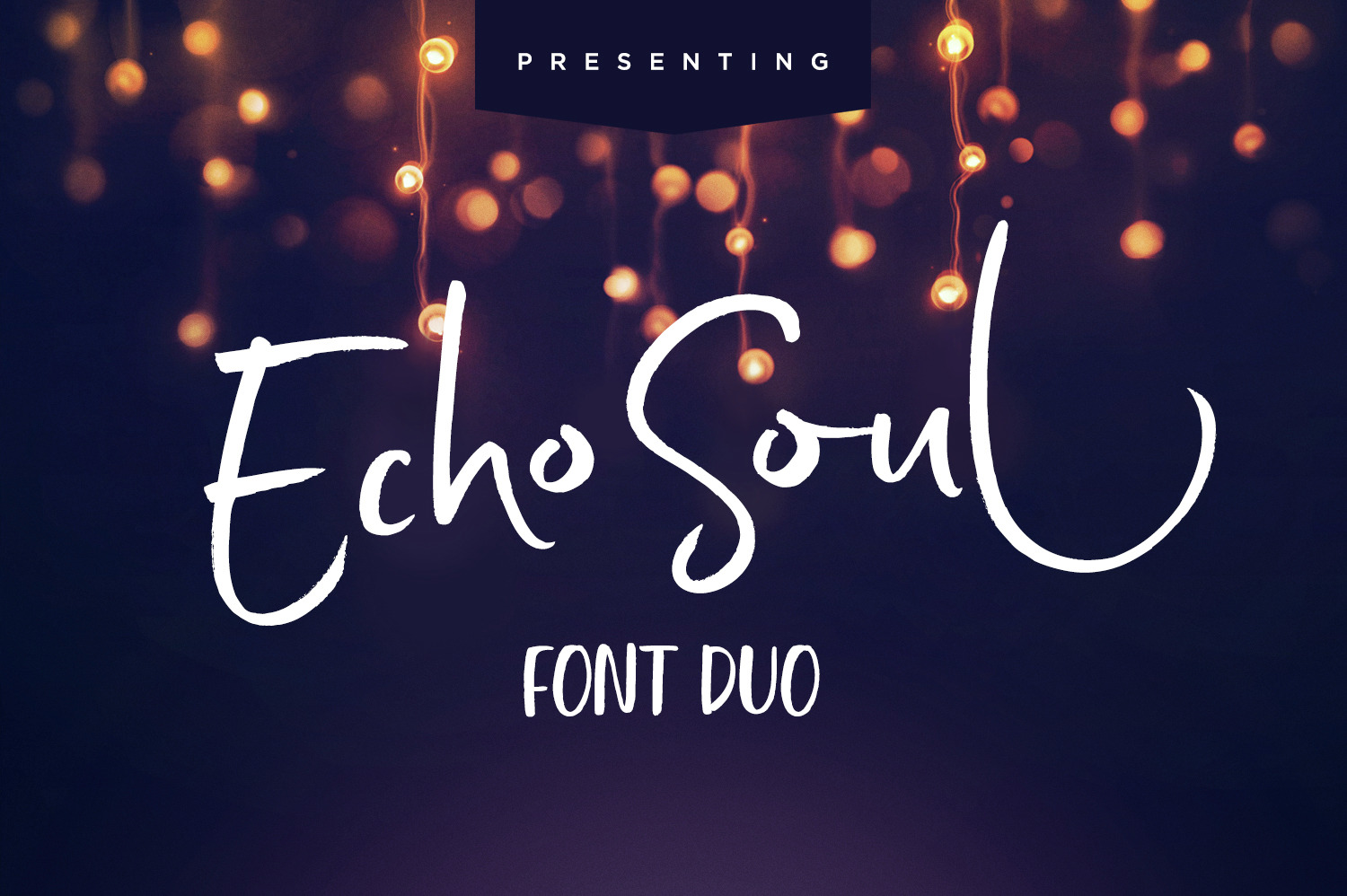
Echo Soul Font Duo
Introducing Echo Soul; a free-flowing and carefree brush font duo, hand painted with love.
Echo Soul speaks from the heart and doesn't hold back. With elongated brush strokes and a natural flow, it's the perfect choice for handwritten quotes, product packaging, and logo designs with a personal and affectionate touch.
1. Echo Soul • A handwritten script font containing upper & lowercase characters, numerals and a large range of punctuation.
2. Echo Soul Alt • This is a second version of Echo Soul, with a completely new set of lowercase characters. If you wanted to avoid letters looking the same each time to recreate a custom-made style, or try a different word shape, simply switch to this font for an additional layout option.
3. Echo Soul Sans • An all-caps font containing uppercase-only characters, perfect for supporting text to compliment the Echo Soul Script font. Also includes numerals and a large range of punctuation.
Special Letters • Are also available for several lowercase characters - these have elongated tails and look great when placed at the end of a word. These special letters are only accessible via software with opentype capability (e.g. Photoshop/Illustrator), and can be used by turning on 'Stylistic Alternates' or accessing via a Glyphs panel